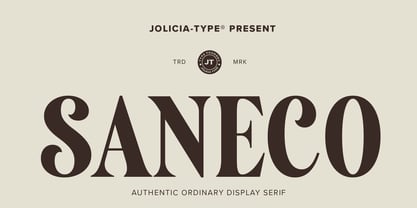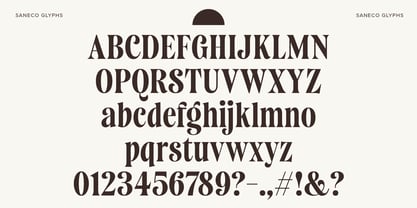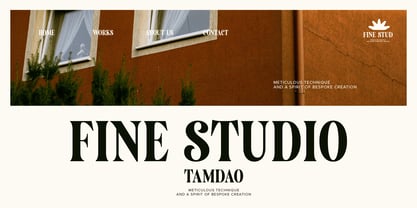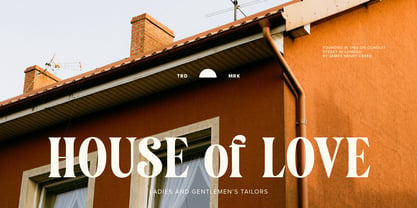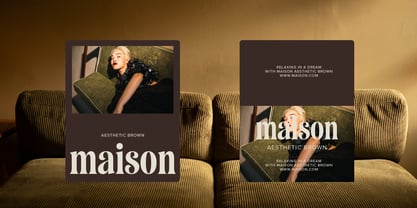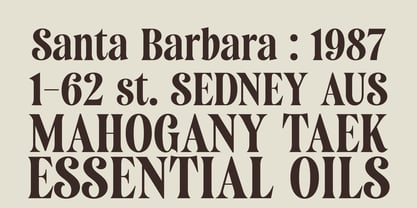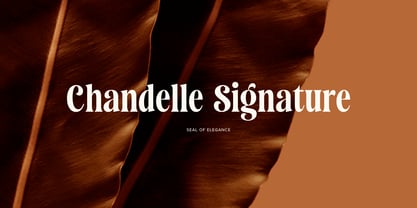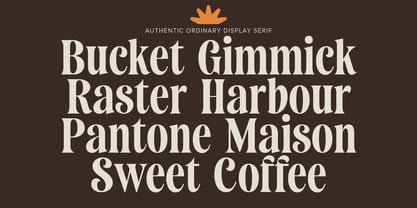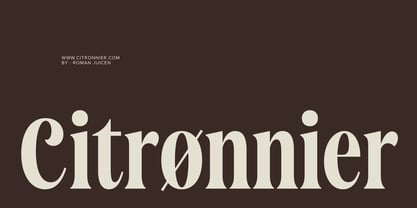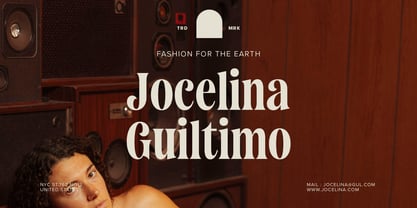
Saneco
by Jolicia Type
The Saneco Font Family was designed by Laire Banyu and published by Jolicia Type. Saneco contains 1 styles. More about this family
Saneco is a modern display serif font that embodies elegance, sophistication, and contemporary editorial aesthetics. Designed with refined letterforms, graceful curves, and stylish proportions, this typeface adds a luxurious and high-end feel to any design project. Its distinctive serif details and balanced structure make it ideal for creating eye-catching headlines and memorable branding. Inspired by modern fashion magazines and premium editorial design, Saneco combines classic serif beauty with a fresh contemporary approach. The font offers a timeless yet trendy appearance, making it perfect for luxury branding, logo design, magazine layouts, cosmetic packaging, invitations, social media graphics, and creative advertising. With its elegant personality and strong visual presence, Saneco is crafted to elevate your typography, helping your designs stand out with confidence, style, and sophistication.
Designers: Laire Banyu
Foundry: Jolicia Type